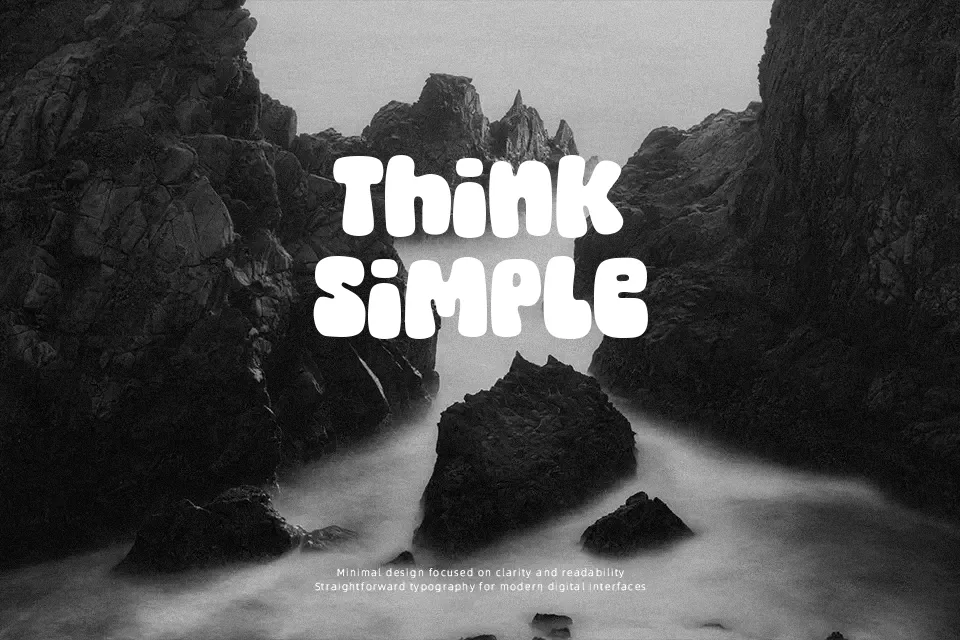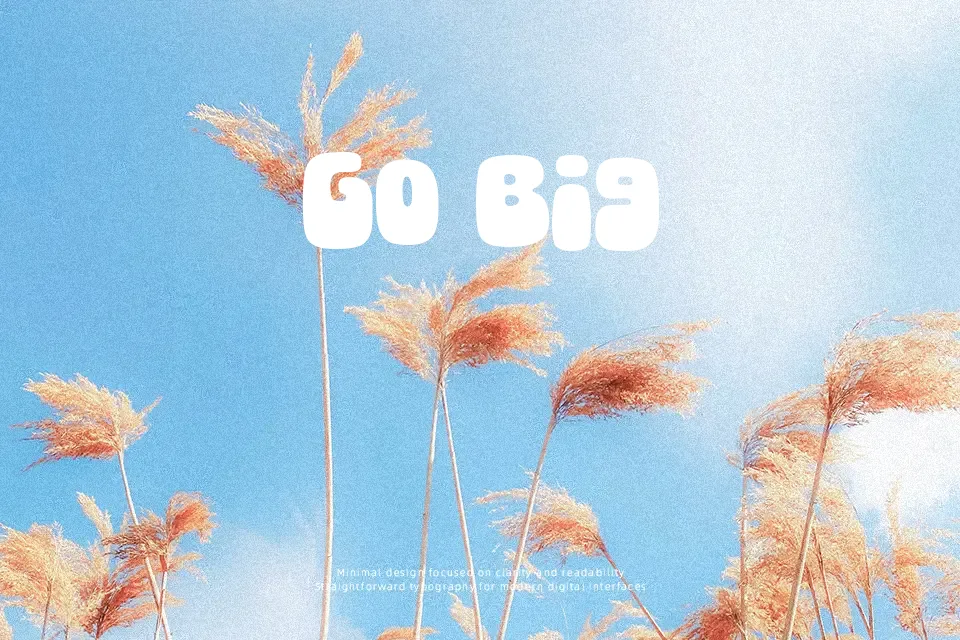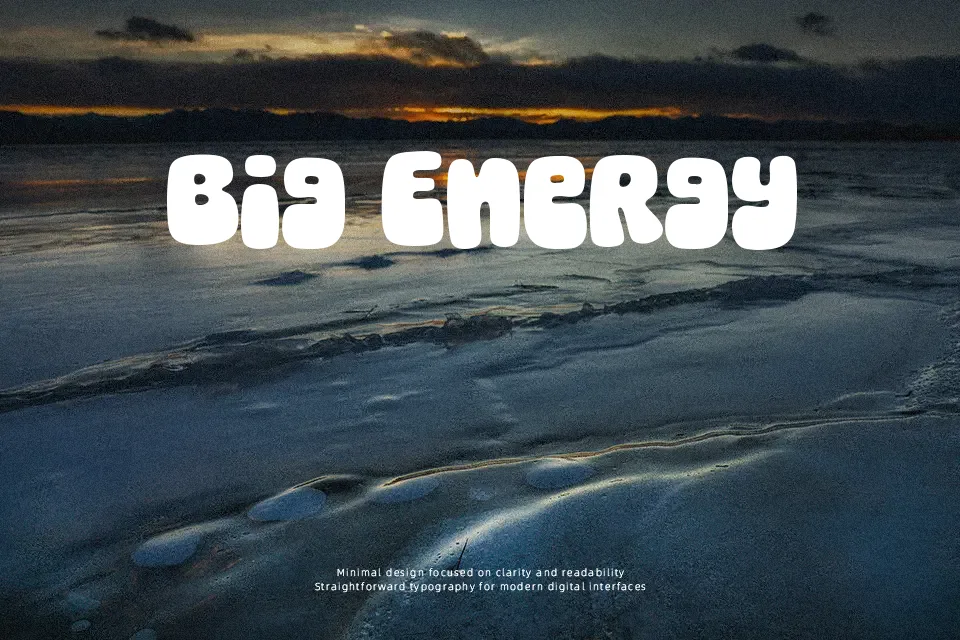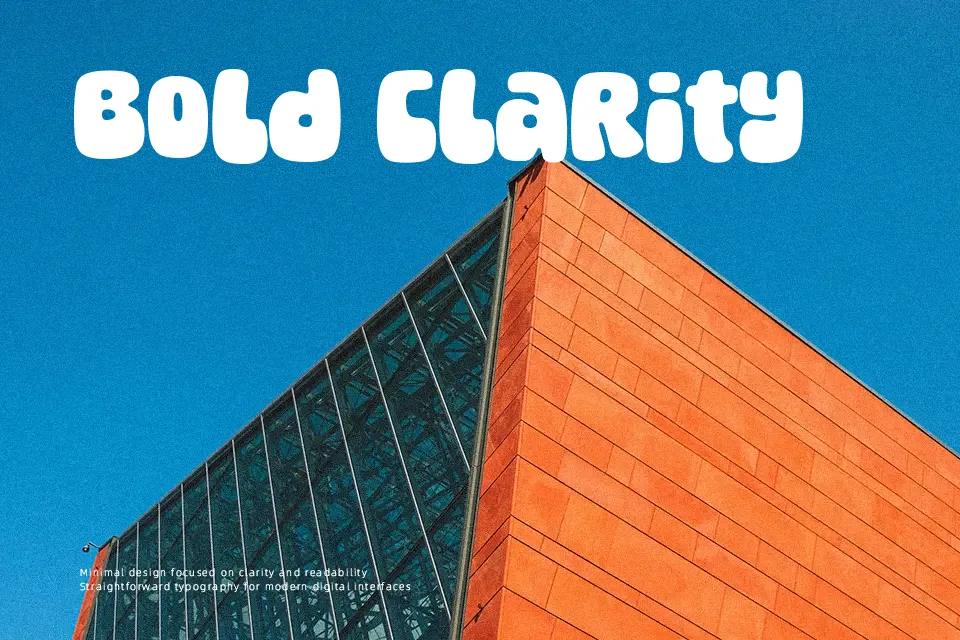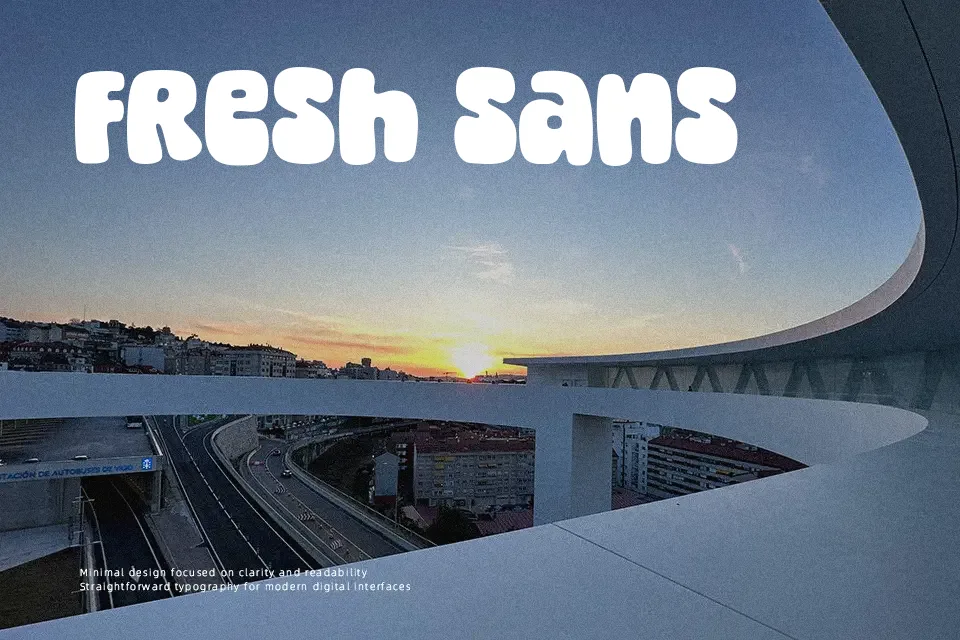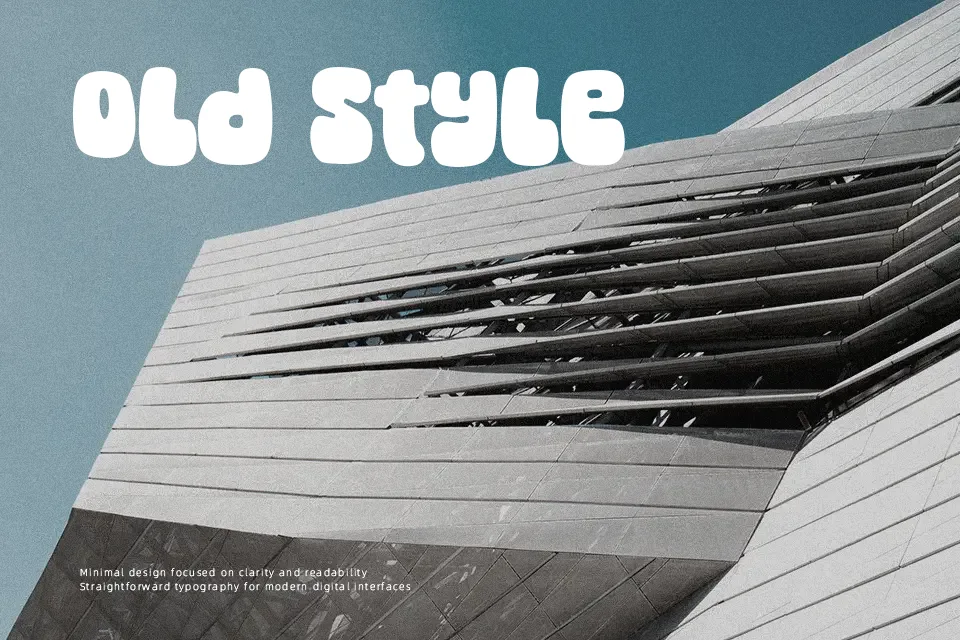
Stay Peach Font
Stay Peach Font showcases a distinctively chubby, retro-inspired aesthetic defined by exaggerated stroke weight and soft, pillowy contours. Each character features heavy, bulbous proportions paired with tight internal negative spaces, creating an energetic rhythm across display titles. The generous weight and smooth terminals ensure strong legibility when rendered at larger sizes on posters and playful product packaging. However, the extreme boldness and compact counters cause interior details to clog at small scales, making continuous text reading uncomfortable. For impactful titles and casual branding assets, the typeface provides an inviting charm that commands immediate visual attention.
Best For: retro merchandise graphics, playful food packaging, children book covers, display poster headlines
Not Ideal For: dense editorial body copy, small interface labels, legal documents, technical manuals
Perfect for headline, kids, and logo, with a bold and decorative style.